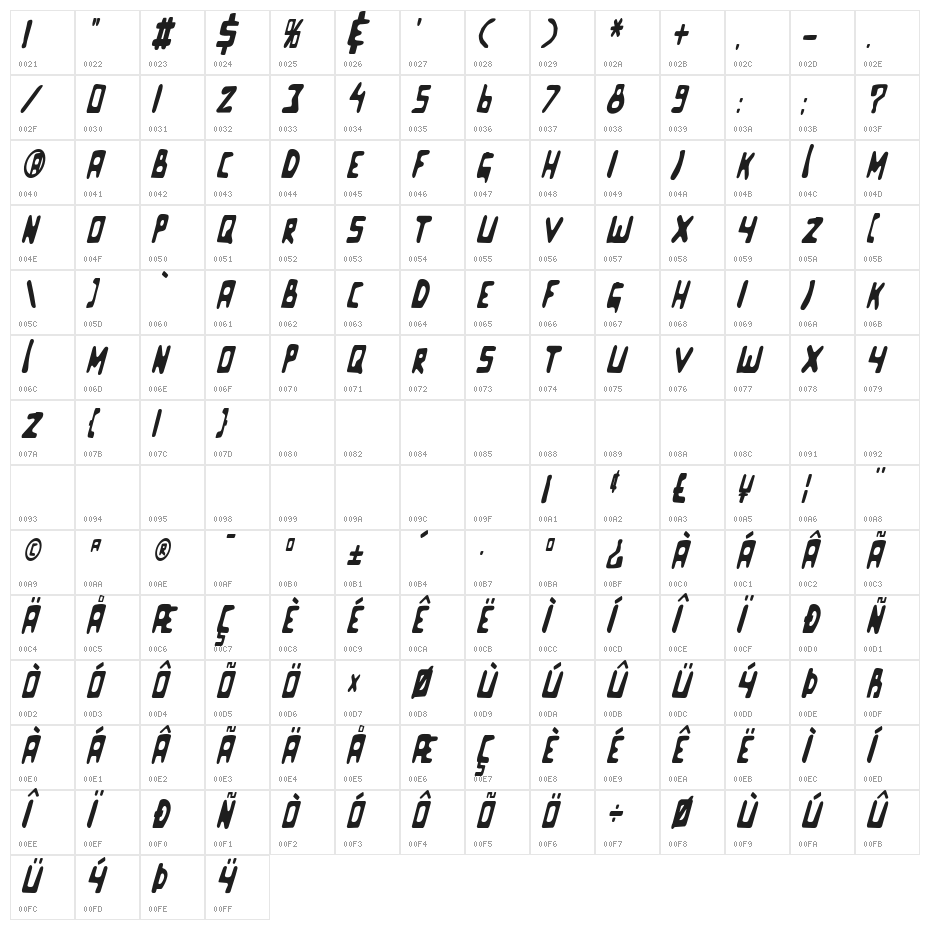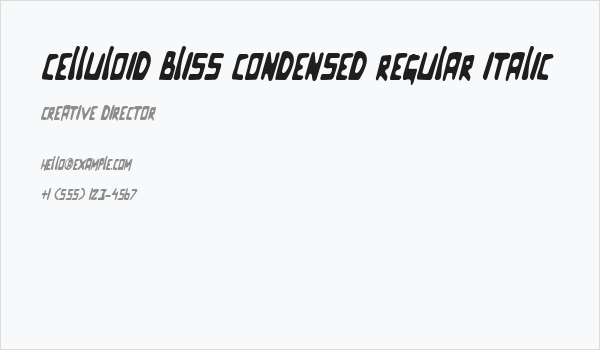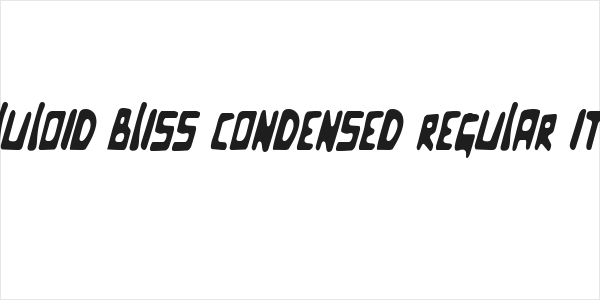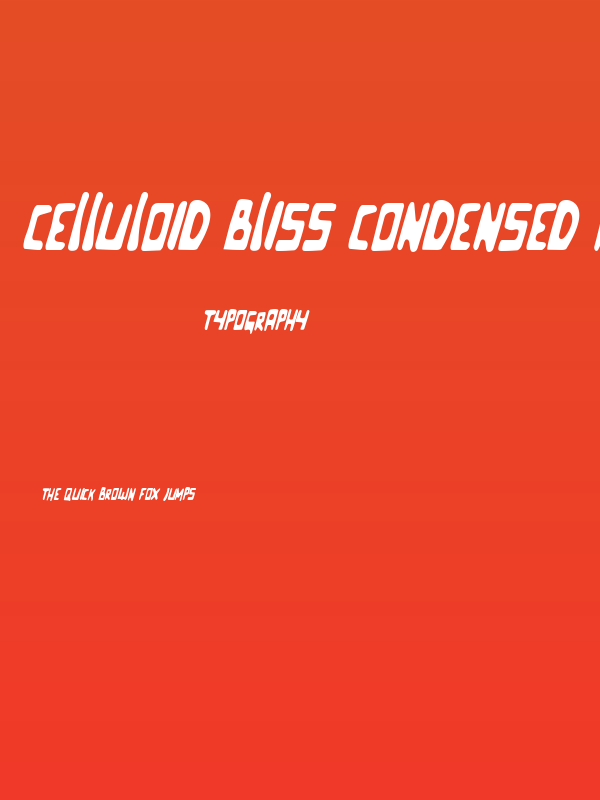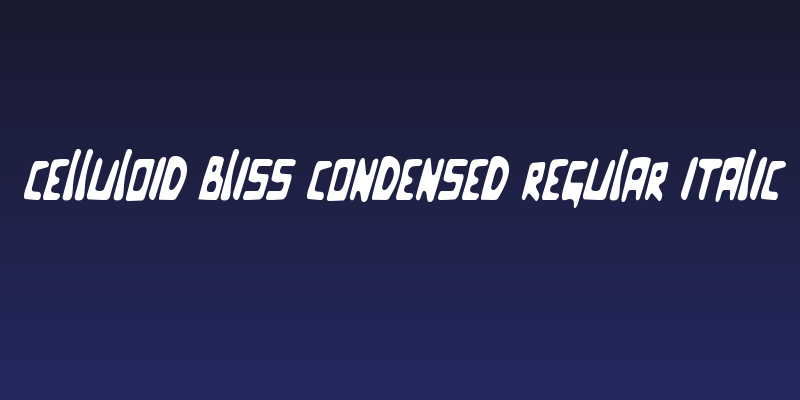
Celluloid Bliss Condensed Regular Italic Font
Celluloid Bliss Condensed Regular Italic Description
This font features a bold and dynamic design with a condensed structure and an italic slant. The characters are thick and robust, providing a strong visual impact. The strokes are consistent in weight, offering a uniform appearance across all characters. The overall style is modern and slightly playful, making it suitable for creative and eye-catching designs. The spacing between characters is tight, enhancing the compact and energetic feel of the font. Its unique style makes it ideal for projects that require a bold statement.
| Proposed Projects | Ideal for posters, headlines, logos, and branding materials that require a bold and dynamic presence. |